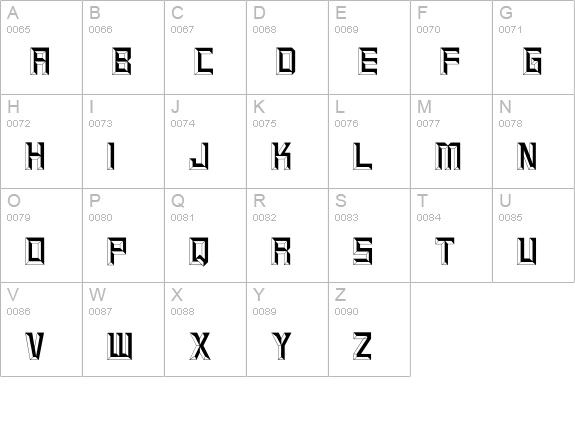
SMCFortKnox Font Details
SMCFortKnox font is a striking and bold typeface that exudes strength and power. Its strong and angular letterforms make a bold statement, perfect for headlines, titles, and logos. This font is designed to leave a lasting impression and grab the attention of viewers. What makes SMCFortKnox font even more appealing is that it is freely available to download at FontsMarket.com. Yes, you read that right, it's completely free! This means that you can add this remarkable font to your design arsenal without breaking the bank. Whether you are a professional designer or a hobbyist, SMCFortKnox font is a valuable addition to your collection. With its versatility and eye-catching design, it can be used in a wide range of projects, from posters and brochures to websites and social media graphics. The unique and distinctive characteristics of SMCFortKnox font make it stand out from the crowd. Its sharp edges and bold strokes give it a modern and edgy feel, making it perfect for contemporary designs. It commands attention and conveys a sense of authority, making it an ideal choice for projects that require a strong and impactful visual presence. SMCFortKnox font is meticulously designed, paying attention to every detail to ensure a flawless and seamless reading experience. Each letter is carefully crafted, resulting in a font that is not only visually appealing but also highly legible. So why wait? Take advantage of the opportunity to enhance your designs with the captivating SMCFortKnox font. Download it for free at FontsMarket.com and unleash your creative potential. It's time to make a bold statement and leave a lasting impression with SMCFortKnox font.